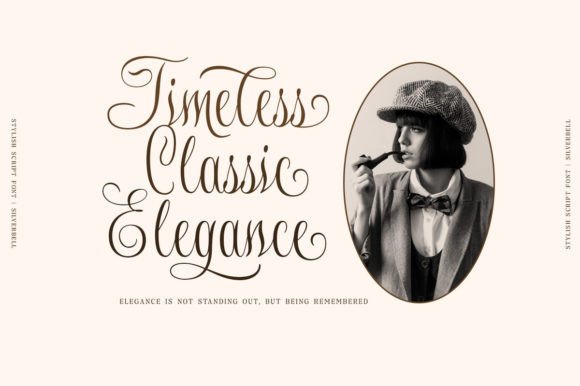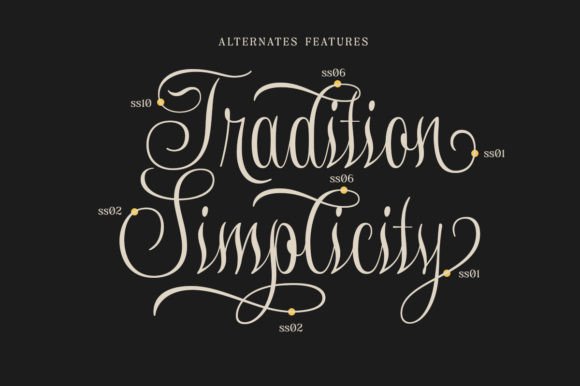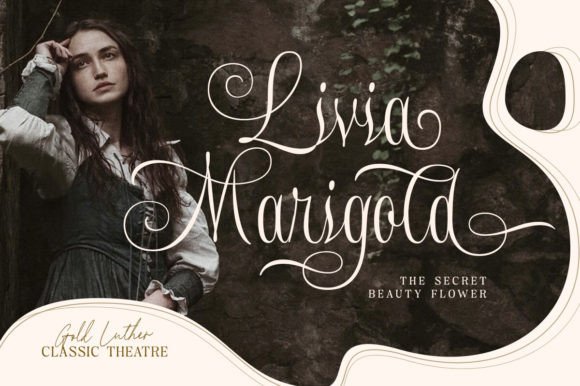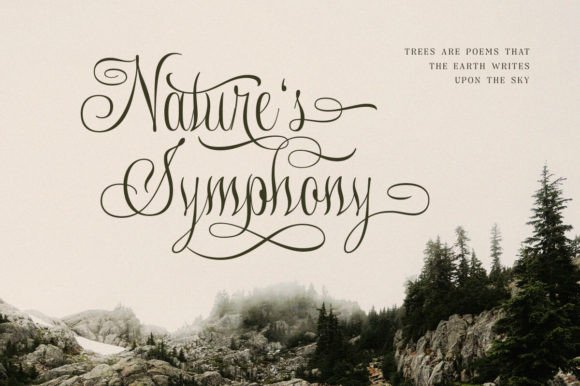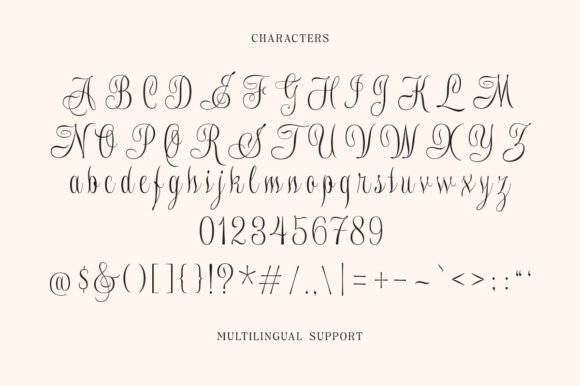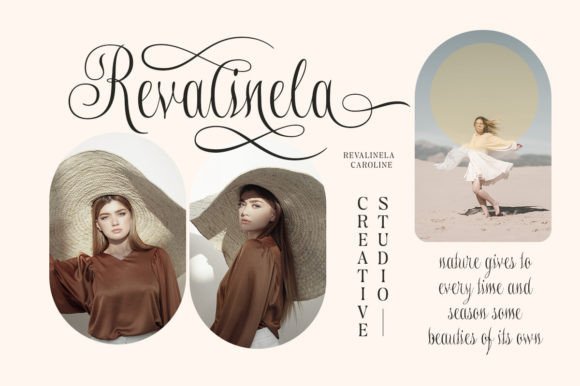
Introduction to Silverbell Font
Have you ever found yourself scrolling through design inspiration boards, mesmerized by the elegant typography and beautiful lettering that seems to elevate every project to new heights? As designers, we’re always on the lookout for that one special font that can take our creative projects from good to great. And today, we’re excited to introduce you to a timeless classic that’s sure to become your new go-to design resource: the Silverbell Font.
This high-quality font is a masterclass in elegance and sophistication, with stylish swashes and a classic beauty that promises to add an air of refinement to any design. Whether you’re working on a formal document, designing a stunning invitation, or crafting alluring branding materials, the Silverbell Font effortlessly enhances your work with its timeless charm.
Key Features of Silverbell Font
- This elegant font is available in a single size, making it suitable for various design elements, from headings to body text.
- The unique, hand-drawn style of the Silverbell Font adds a touch of sophistication and creativity to any design project.
Honest Review: Silverbell Font
I recently stumbled upon the Silverbell Font while searching for a free design resource to enhance my creative project. I was thrilled to discover that this elegant font offers a high quality and sophisticated look that’s perfect for any professional design.
Here are some of the things that work well about the Silverbell Font:
- ✨ Unique and modern design that’s perfect for creative projects
- ✨ High quality and crisp typography that’s ideal for print and digital designs
- ✨ Transparent background, making it easy to use in any design context
- ⚠️ Limited character set, which may not be suitable for complex designs or large blocks of text
- ⚠️ Not all languages are supported, which may be a concern for designers working with international clients
Overall, I was impressed with the Silverbell Font and would recommend it as a valuable design resource. While it may have some limitations, its unique design and high quality typography make it a great choice for many creative projects.
When using the Silverbell Font, consider the following tips: Use it sparingly to avoid overwhelming your design with too much text. Also, pair it with a transparent background to create a clean and modern look. Common use cases for the Silverbell Font include wedding invitations, business cards, and product packaging designs.